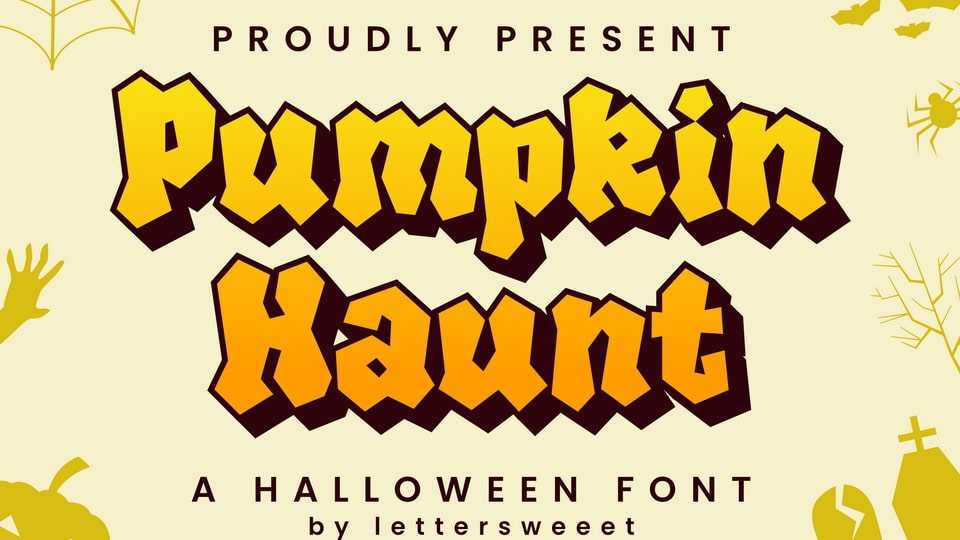
Download Pumpkin Haunt font, a bold, spooky-cute Halloween typeface that turns any design into a haunted headline. Chunky letterforms, chiseled edges, and a built-in shadow style create instant depth.